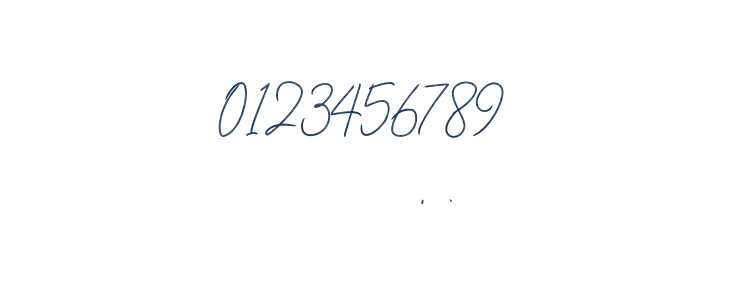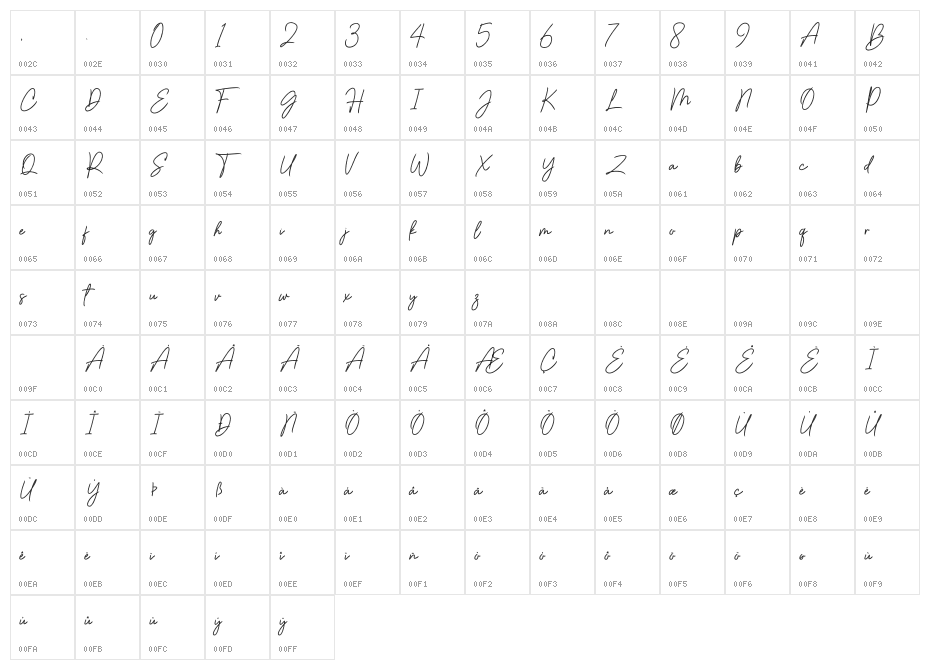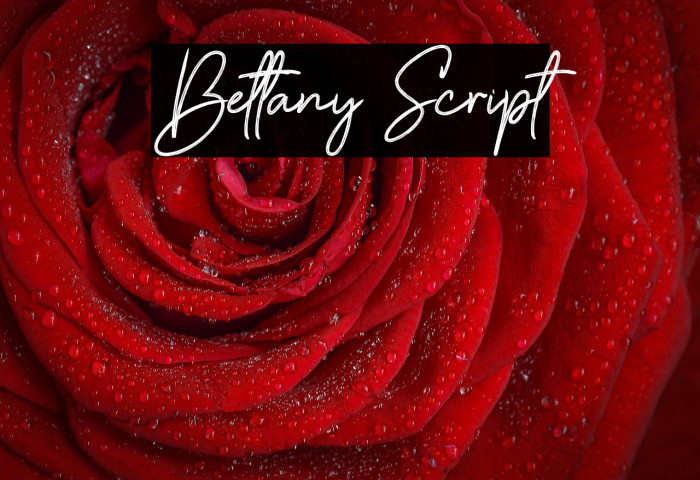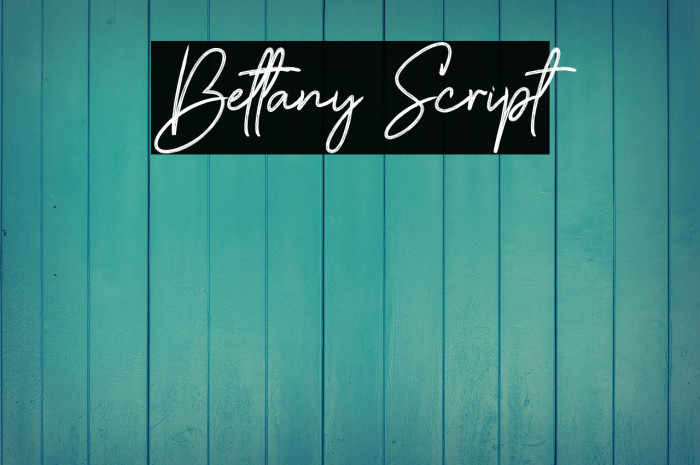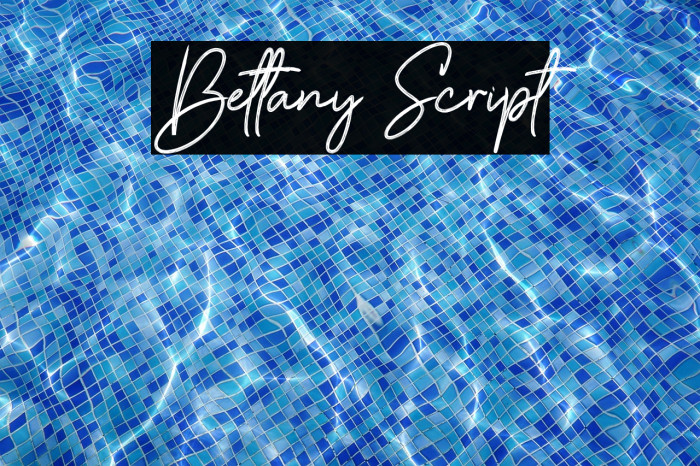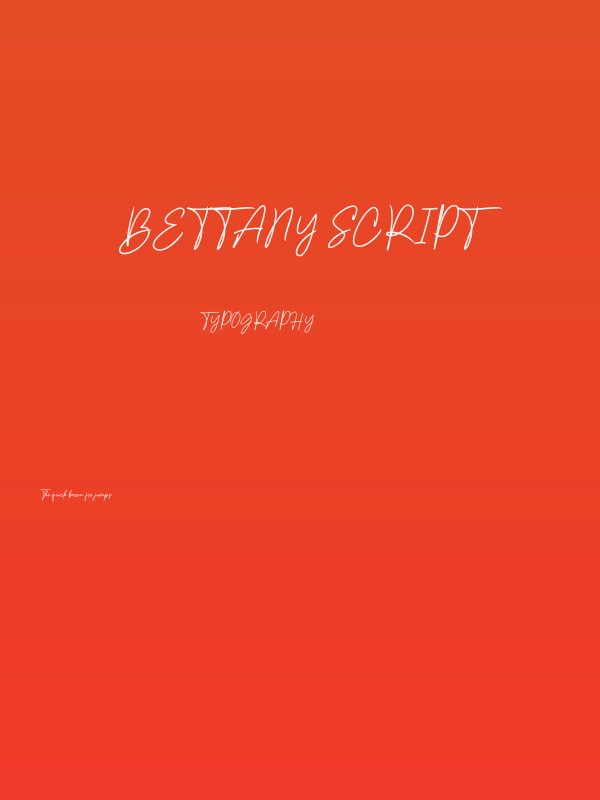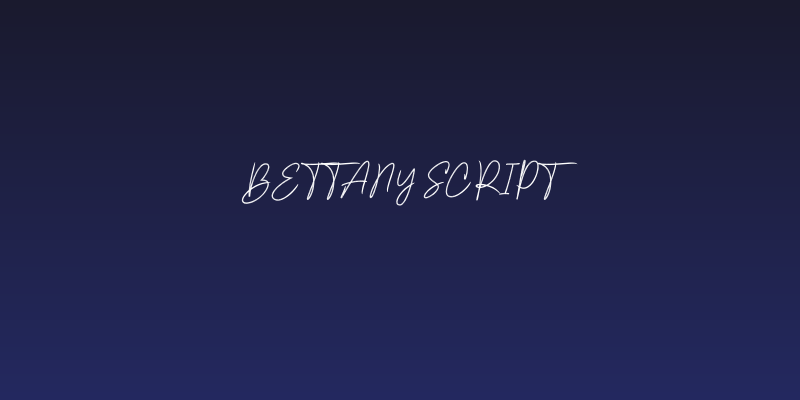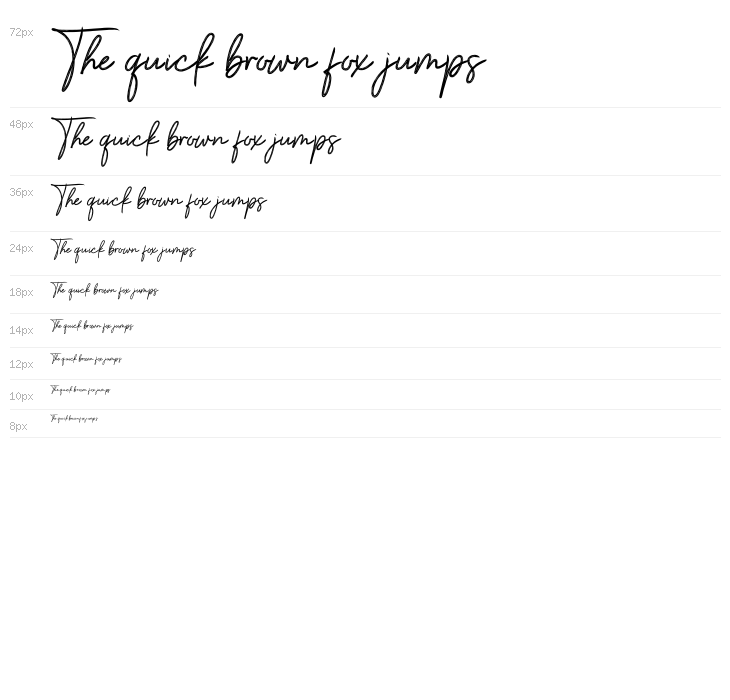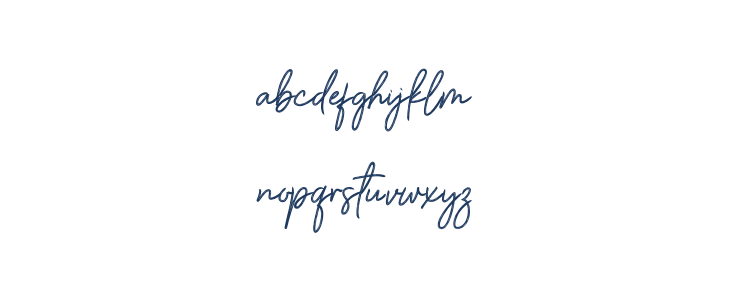
Bettany Script Font
Bettany Script Description
This elegant script font features a fluid, handwritten style that exudes sophistication and charm. The letters are gracefully connected, with smooth curves and a natural flow that mimics the look of cursive handwriting. The uppercase letters are slightly more elaborate, with decorative flourishes that add a touch of flair, while the lowercase letters maintain a consistent, flowing appearance. The numerals are clear and legible, matching the overall aesthetic of the script. This font is perfect for projects that require a personal touch, such as invitations, greeting cards, or branding materials. Its stylish and modern appearance makes it suitable for a variety of creative applications.
Proposed ProjectsIdeal for wedding invitations, greeting cards, branding, and personal stationery.